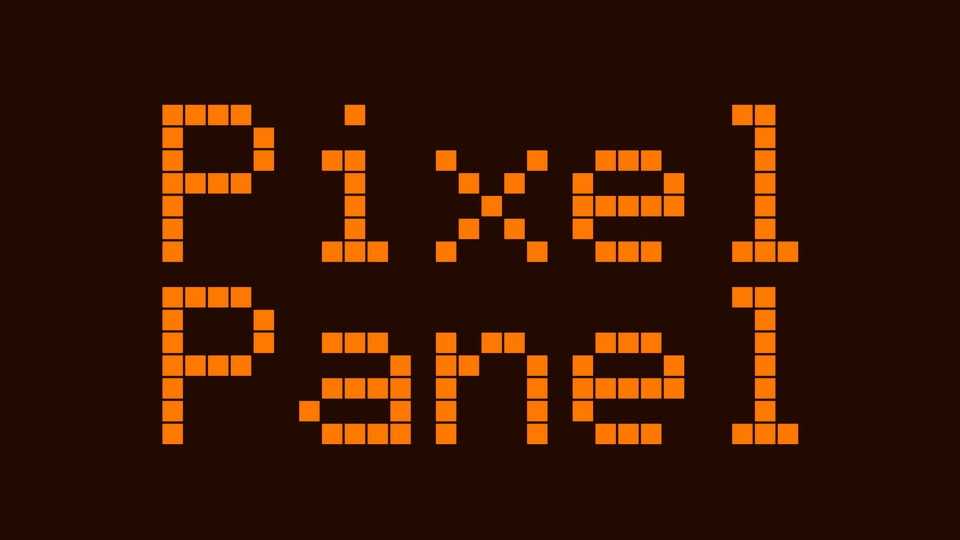
Download Pixel Panel font, a 6×10 bitmap-inspired typeface featuring two variable axes: One that controls the pixel size, and another one that controls the pixel roundness.
Designer: Óliver Lalan